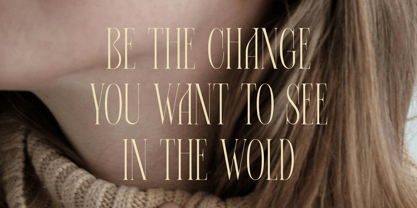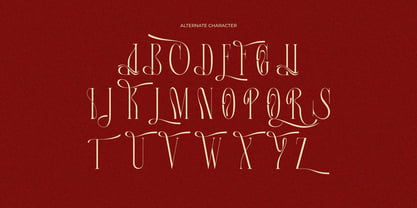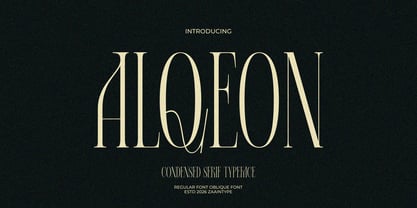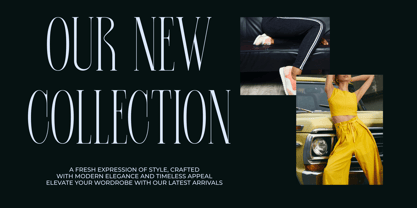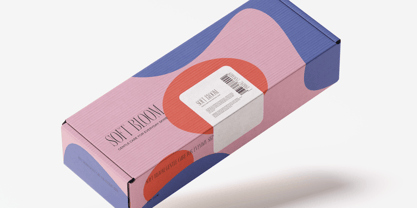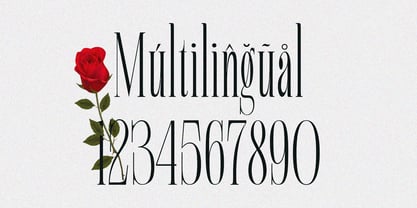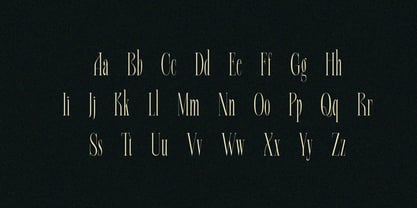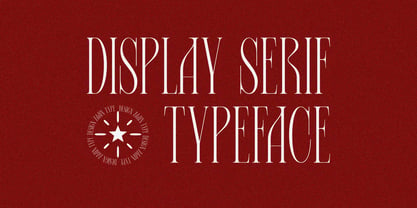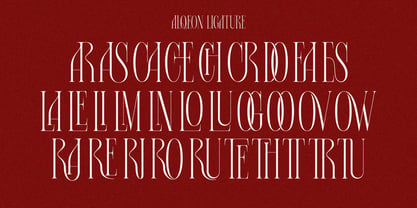
Alqeon
by Zaain Type
The Alqeon Font Family was designed by Ju Naen and published by Zaain Type. Alqeon contains 2 styles and family package options. More about this family
Alqeon is a font that radiates a modern character with a subtle touch of elegance. Designed with a balance between firmness and refined detail, it presents a clean yet sophisticated appearance. Each curve is crafted with precision, creating a harmonious visual rhythm and ensuring readability at various sizes. This font is well-suited for branding, editorial, fashion, and digital designs that emphasize a premium and professional feel. Its versatile style allows it to work effectively both as a strong headline and as aesthetically pleasing supporting text